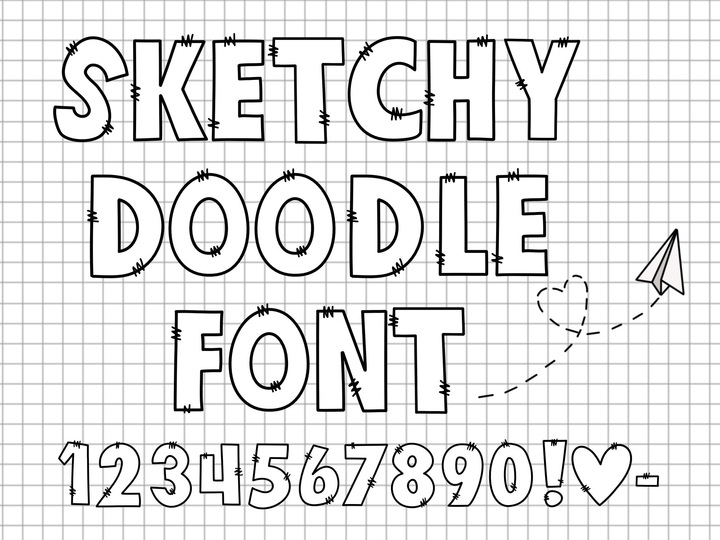
Sketchy Doodle Font
Sketchy Doodle Font is perfect for creative workshop branding, children's educational materials, artistic studio identities, casual restaurant menus, playful social media graphics, craft project designs, informal greeting cards, creative agency communications, and whimsical lifestyle campaigns.
What makes Sketchy Doodle Font exciting is its spontaneously creative character that captures the pure joy and unfiltered imagination of artistic expression through hand-drawn letterforms that seem sketched with the carefree spirit of creative exploration. The font features organic, irregular shapes with doodle-like details that evoke the authentic creativity and playful experimentation found in artist sketchbooks and margin drawings. Its artistic aesthetic and creative authenticity make it perfect for brands that want to communicate creativity, authenticity, and the unbridled artistic spirit that celebrates the beauty of imperfection while creating memorable experiences that honor the creative process and inspire artistic expression.
Sketchy Doodle Font family includes various artistic weights such as Light, Regular, and Bold variations, often featuring hand-drawn alternates and creative decorative elements. The family may include doodle symbols, artistic ornaments, and sketch-style ligatures that enhance the font's creative aesthetic, providing designers with comprehensive options for creating authentic typographic compositions that celebrate the spontaneous joy of artistic creation and creative expression.
This authentically creative typeface has gained recognition among artistic brands and creative education organizations seeking genuine hand-drawn typography solutions that reflect creative values and artistic authenticity. Sketchy Doodle Font Free Download provides an excellent opportunity to sketch with this creative font before investment. The font's character set includes artistic symbols and doodle-inspired glyphs that work perfectly for creative and educational industry applications. Whether you're designing for art schools, creative workshops, or playful lifestyle brands, Sketchy Doodle Font delivers the artistic authenticity your project requires. Its versatile nature makes it suitable for various creative applications including art supplies companies, creative learning centers, children's brands, and artistic lifestyle companies, ensuring your typography choices communicate genuine creativity and artistic spirit while creating memorable brand experiences that celebrate the pure joy of creative expression and the importance of maintaining playful artistic exploration through its distinctively sketchy and authentically creative visual character.